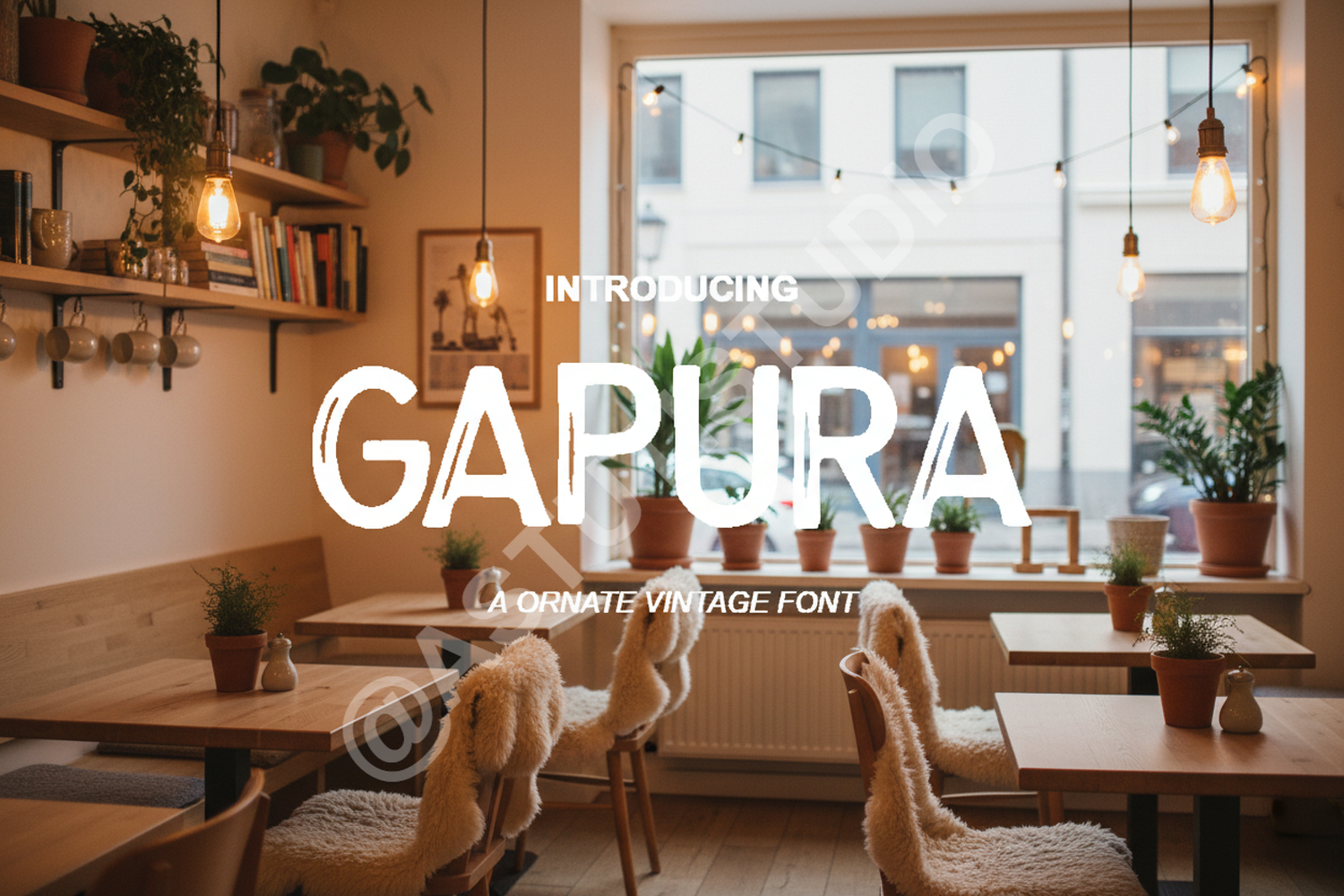
Gapura - Sophisticated Serif Display Font
Gapura
Gapura is a masterpiece of modern typography, blending classic serif elegance with contemporary flair. Designed for those who demand excellence, this font brings a touch of luxury and professional polish to every creative project. Its balanced proportions and refined details make it a versatile addition to any designer's toolkit.
- High-End Branding: Create memorable logos and corporate identities.
- Editorial Design: Perfect for magazine headers and stylish layouts.
- Wedding Stationery: Add a touch of class to invitations and RSVP cards.
- Product Packaging: Elevate your brand presence on physical goods.
- Social Media: Design eye-catching quotes and promotional graphics.